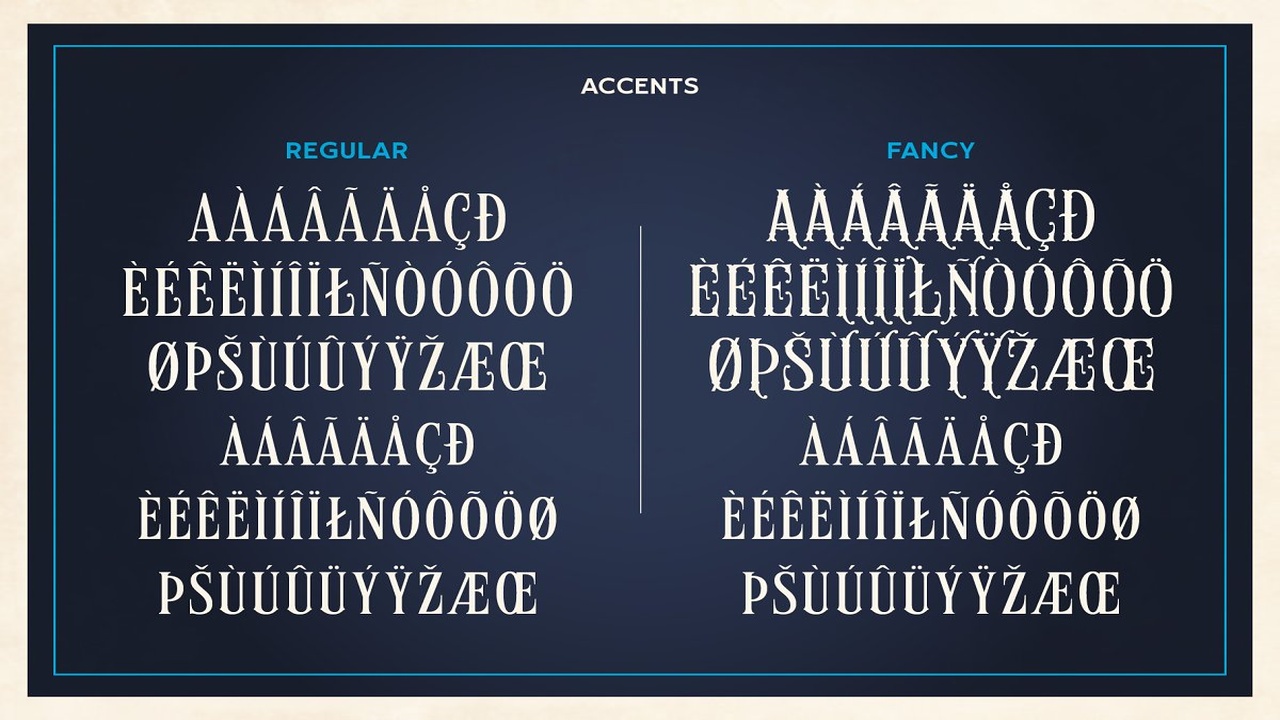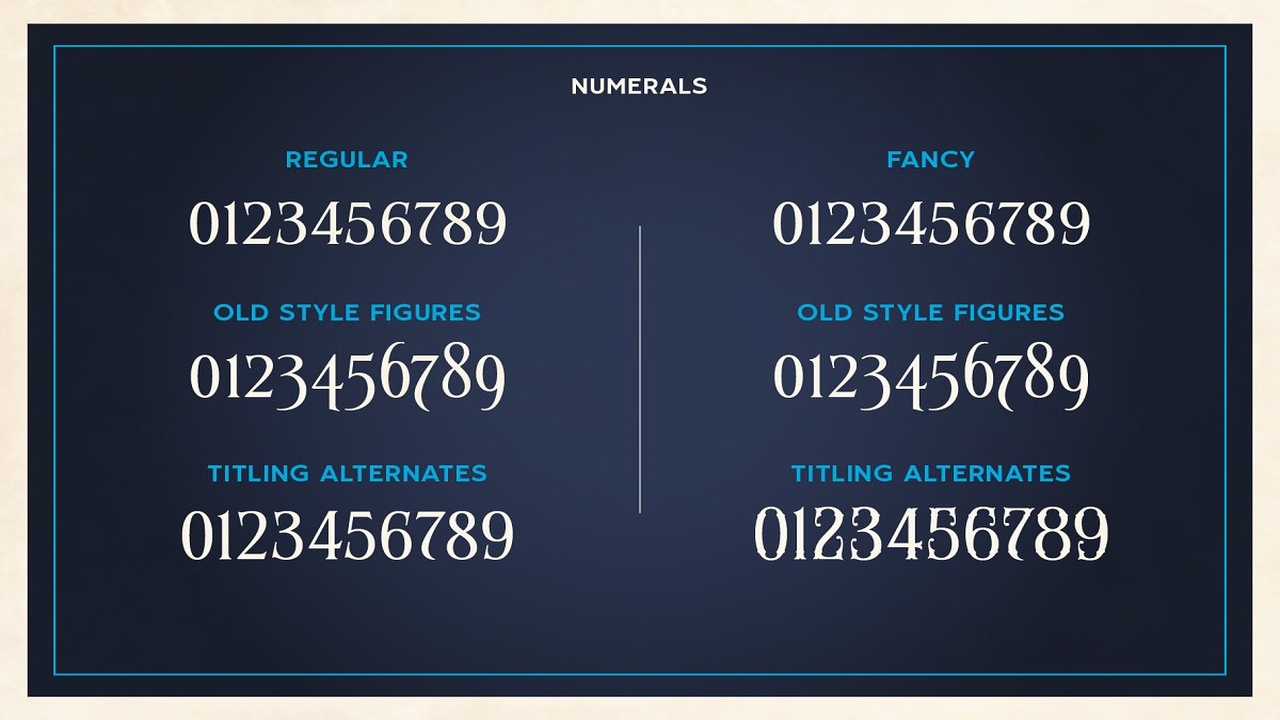
About the Blue Ridge A Vintage Pair Font
Blue Ridge is a vintage and modestly ornate display typeface that invokes the styling of cigar and liquor packaging labels from late 1800s America, It features a regular and fancy versions with decorative capitals, old style figures and titling figures, Use Blue Ridge to add instant style and glamour to your work, – This font set includes both Regular and Fancy
That’s two fonts for the price of one, – OTF format– Basic Western European characters with accents and punctuation– Includes old style figures and titling alternates